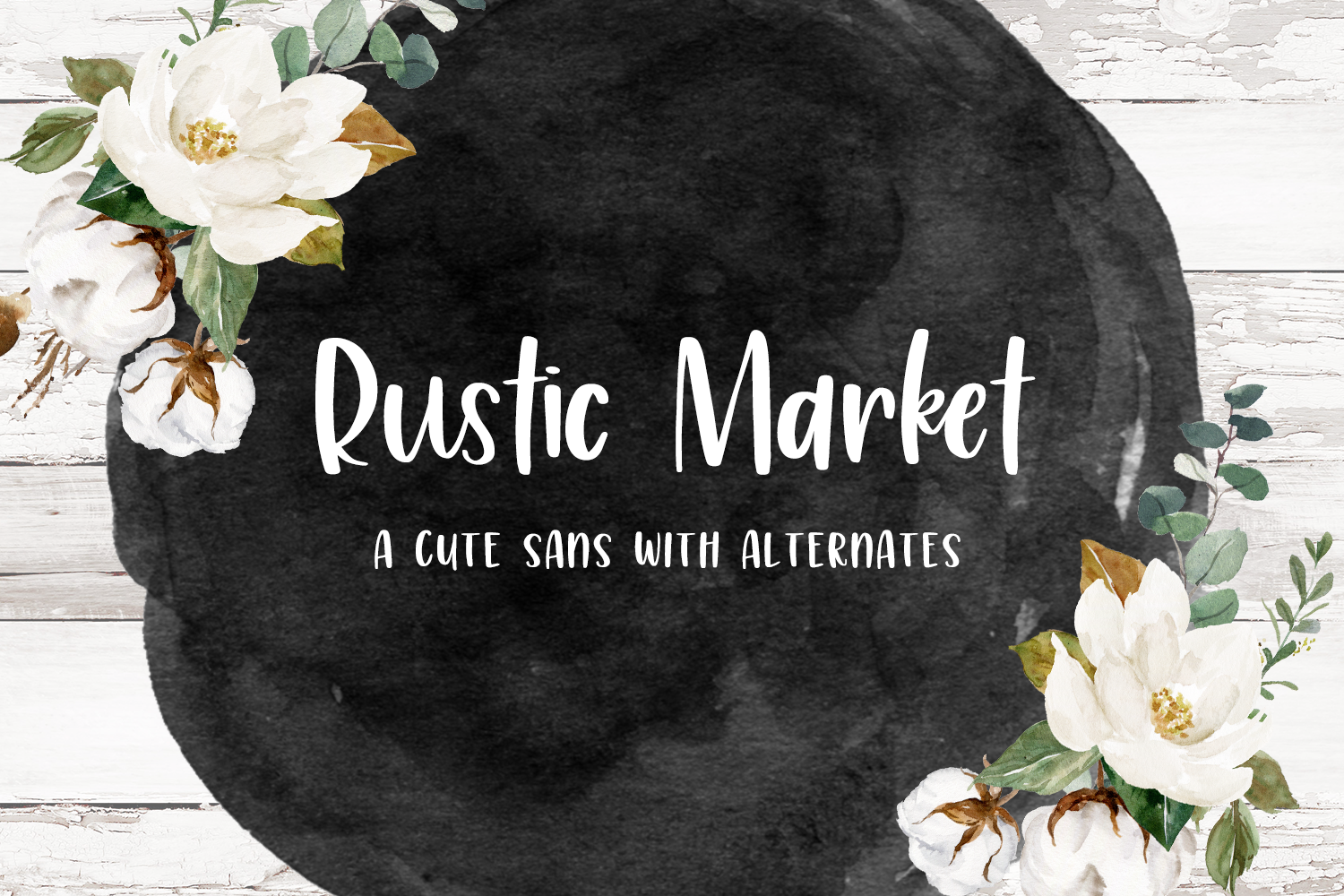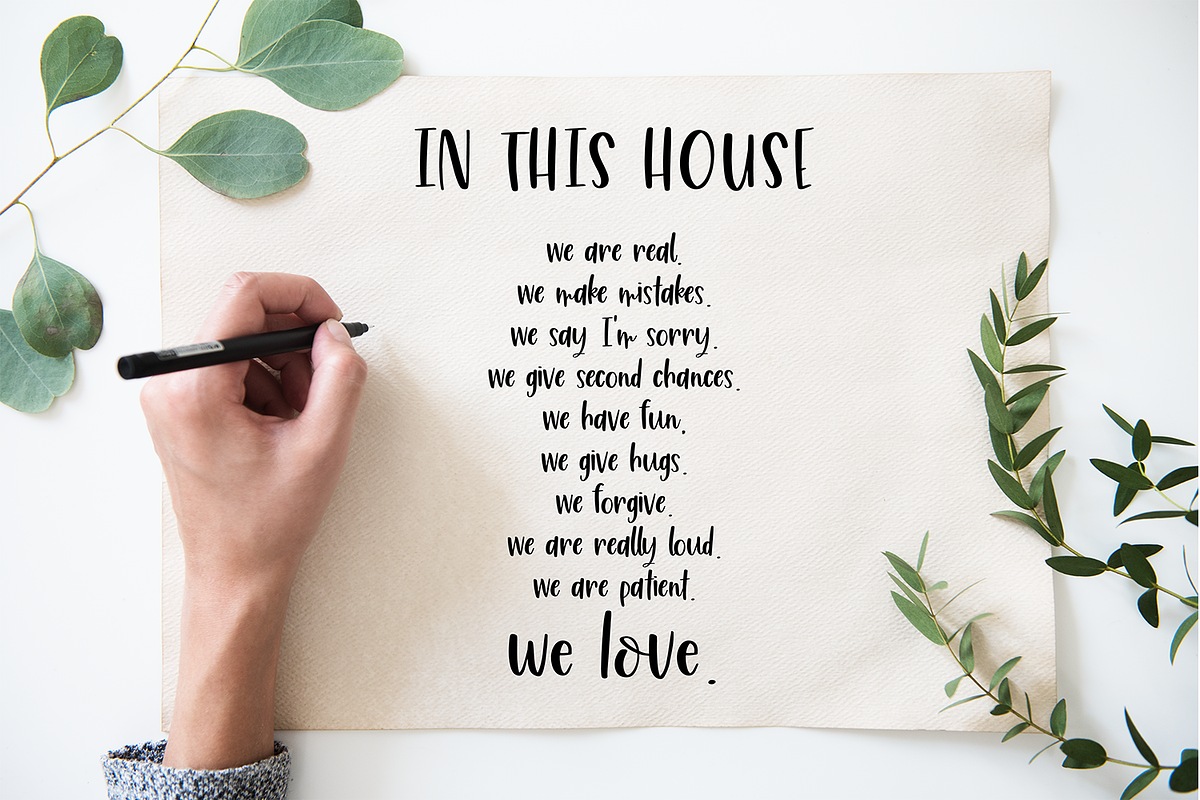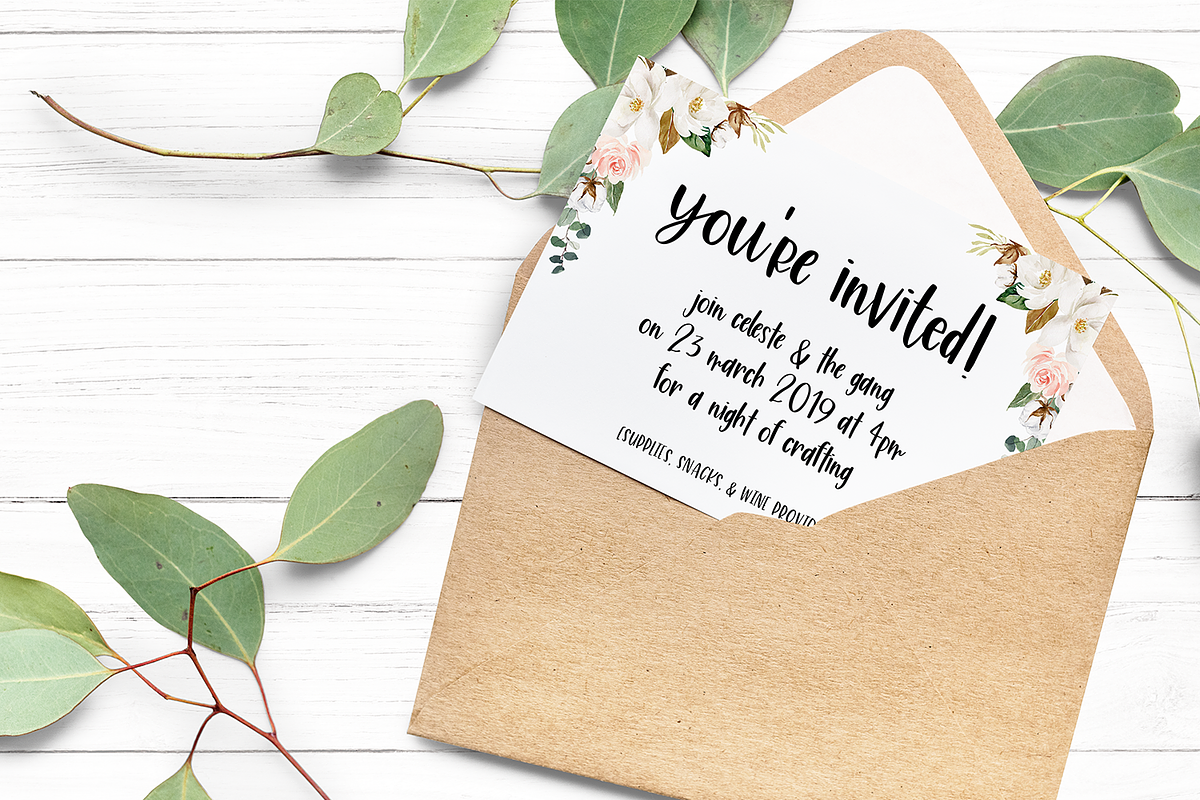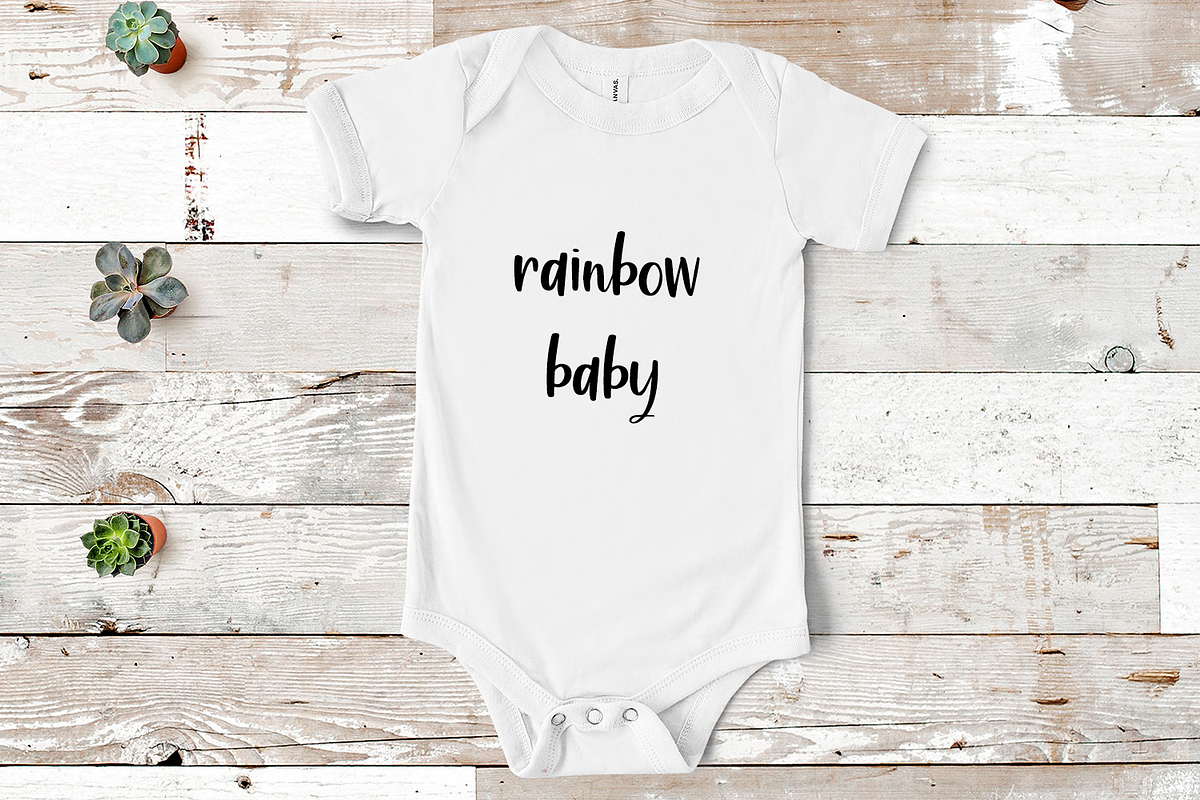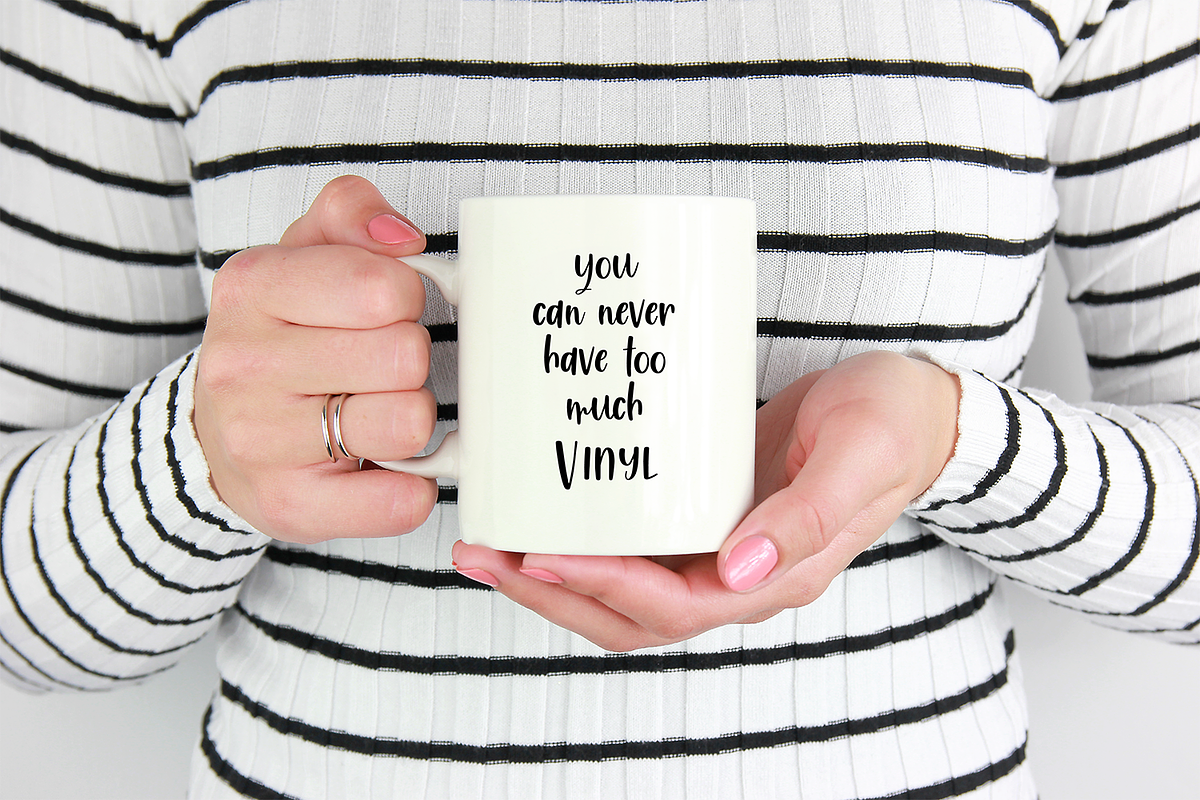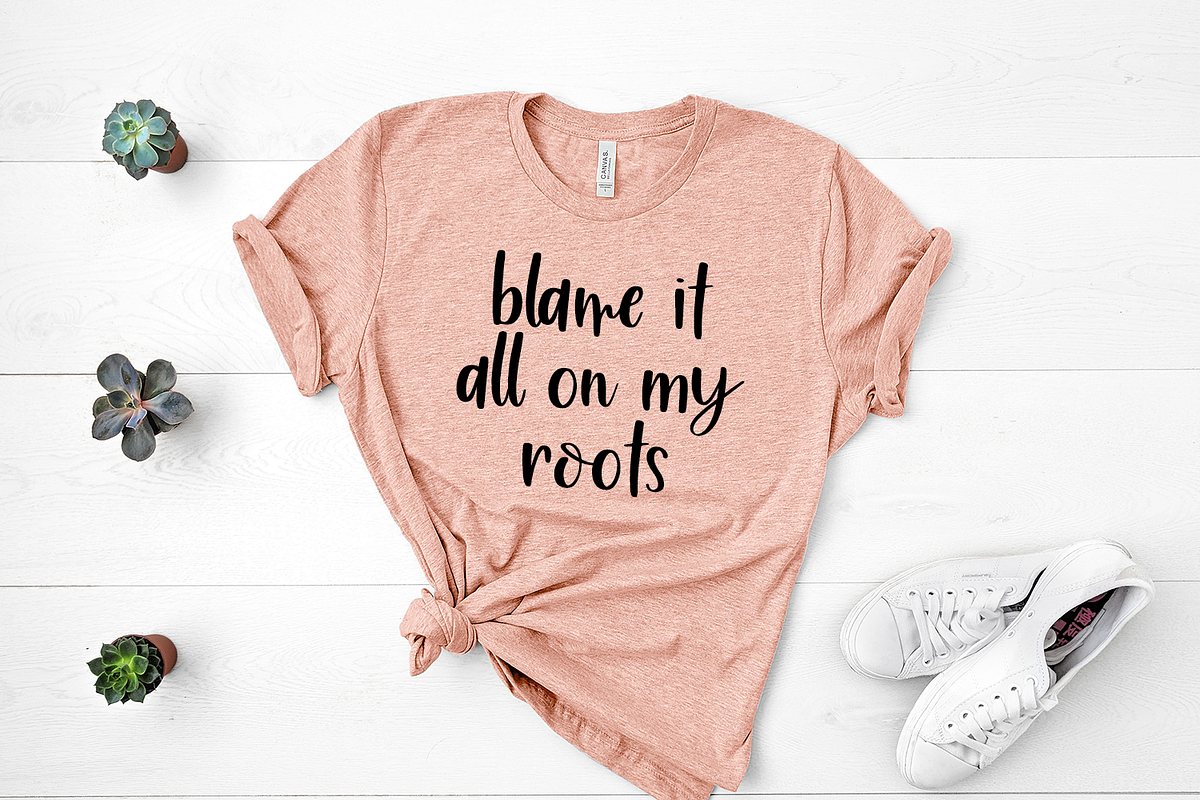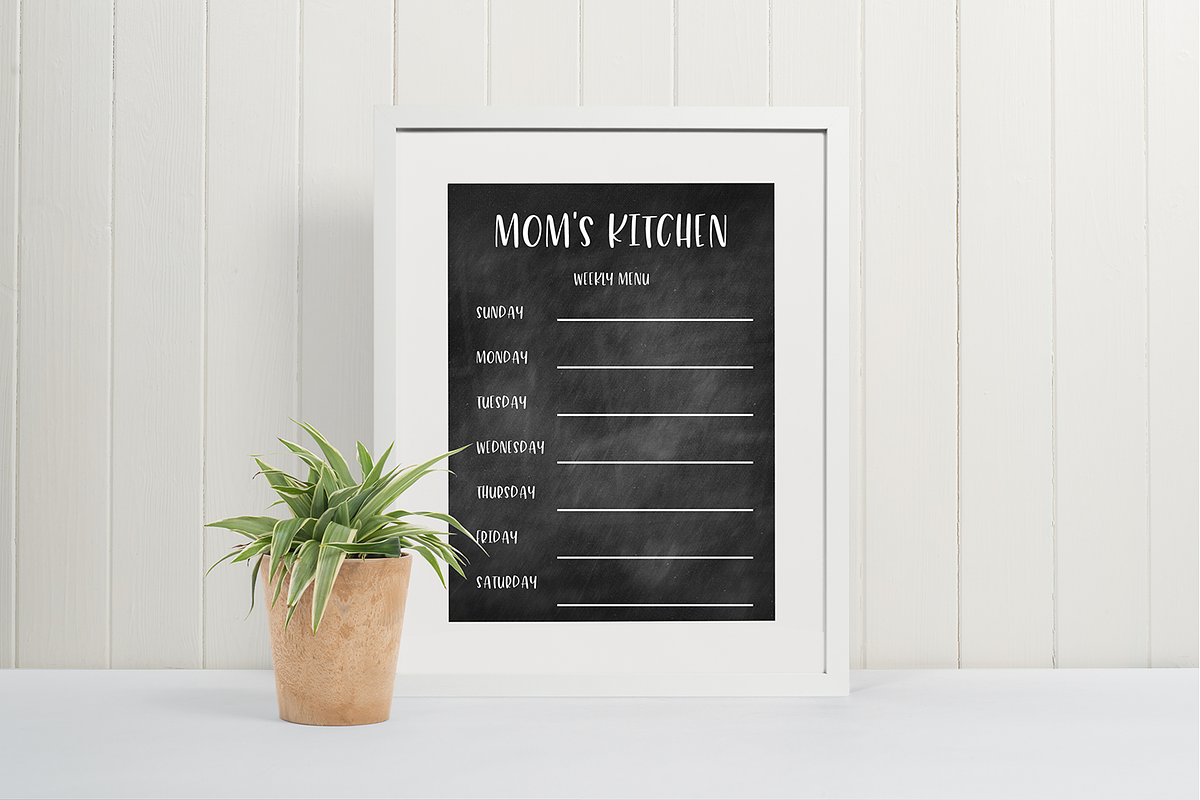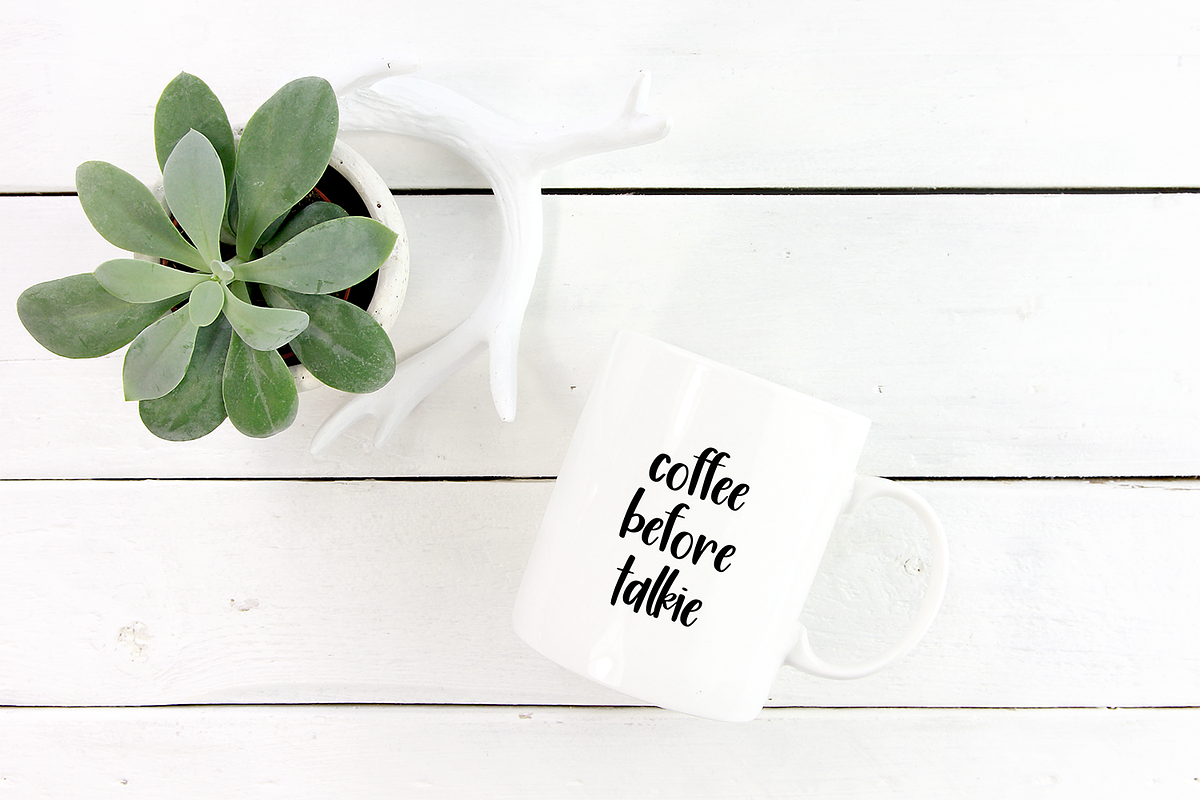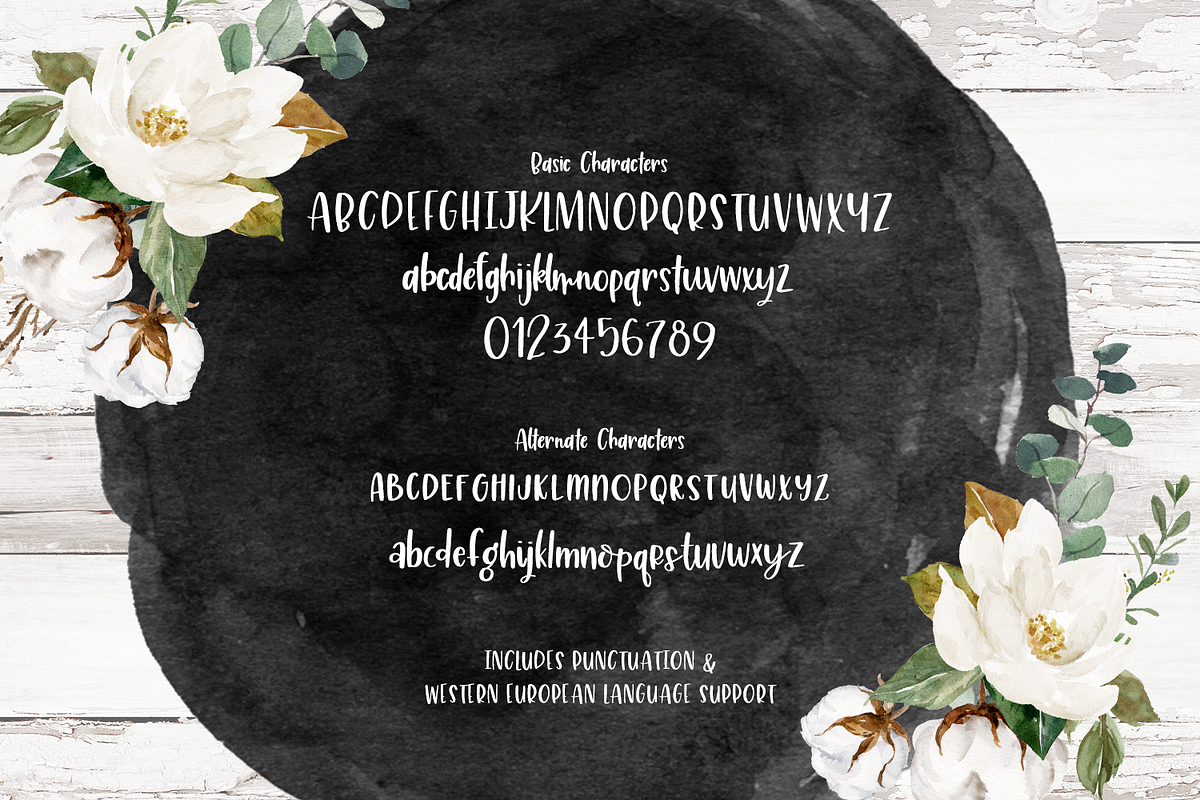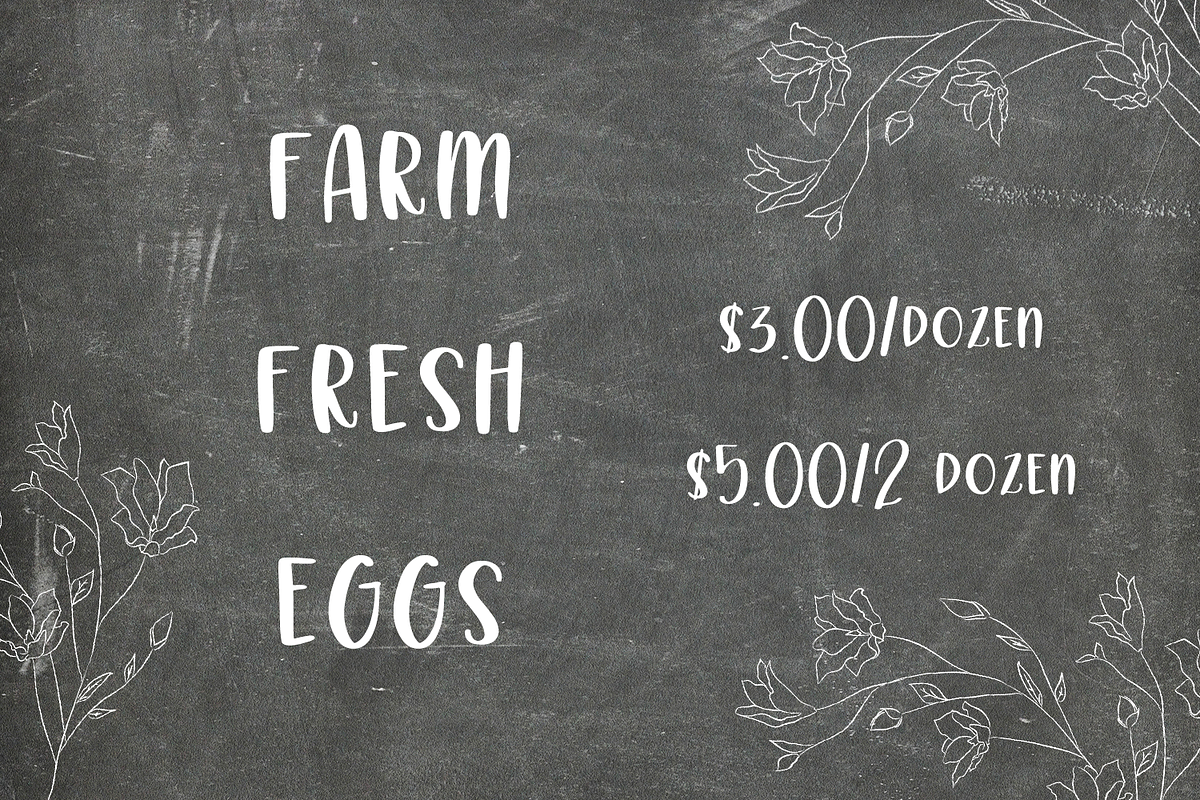
Rustic Market Sans Font
Rustic Market Sans is a cute font with clean lines, a smooth edge, and fun characters. Use in all caps, all lowercase, or even mixed case to full customize the handwritten look of your project.
Rustic Market Sans is best for:
- quote graphics for social media
- logos + branding for kid-centric brands
- design items like shirts, coffee mugs, & more
- Cricut and Silhouette projects
- other crafting projects
- school or classroom projects
Rustic Market Sans includes:
- full upper + lowercase characters
- numbers + punctuation
- Western European Language Support
- 26 alternate caps characters & 26 alternate lowercase characters